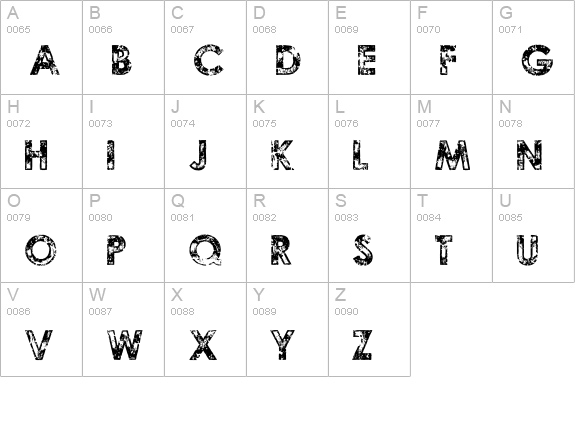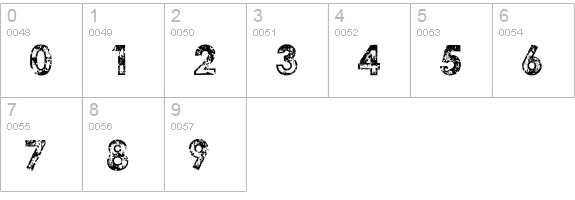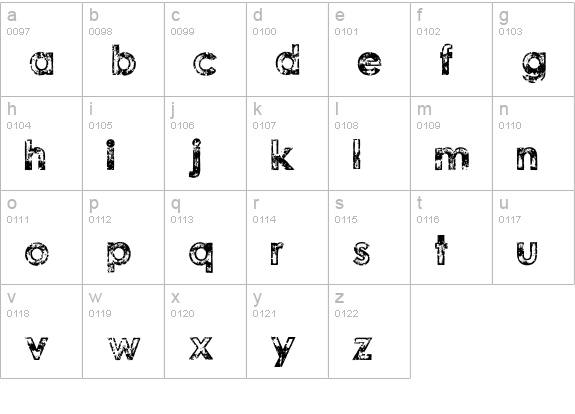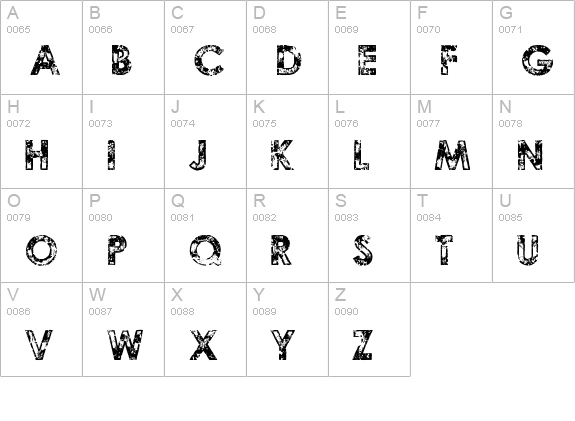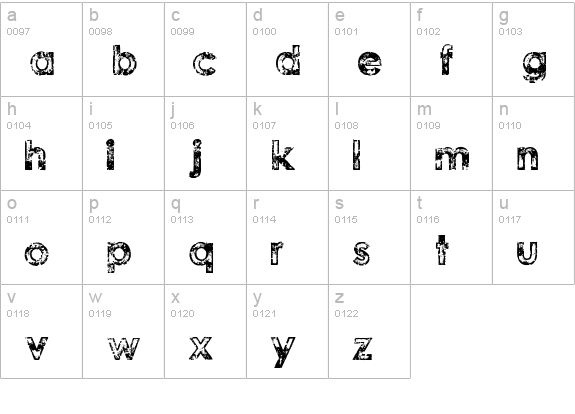
Introducing the captivating Tragic Vision font, a tragic yet mesmerizing typeface that will evoke a myriad of emotions in your designs. With its unique and intricate letterforms, Tragic Vision captures the essence of sorrow and longing, creating a compelling visual narrative that resonates with the viewer. This font is a testament to the power of typography in conveying deep emotions and storytelling. Each glyph is meticulously crafted, blending elegance and despair seamlessly to create a truly captivating visual experience. The delicate curves and sharp edges of Tragic Vision come together in perfect harmony, allowing for versatile usage in a wide range of design projects. Whether you're working on a book cover, poster, logo, or any other creative endeavor, Tragic Vision will add a touch of melancholic beauty and authenticity to your designs. Its versatility allows it to effortlessly adapt to different moods and themes, making it a valuable asset in any designer's toolkit. The best part? Tragic Vision is freely available to download at FontsMarket.com. Yes, you read that right - this captivating font can be yours without any cost. Embrace the opportunity to enhance your designs with the evocative power of Tragic Vision, and let it breathe life into your creative projects. Unlock the potential of your design work and allow Tragic Vision to immerse your audience in a world of emotions. Download this remarkable font today and unleash your artistic vision with a touch of tragedy and beauty.